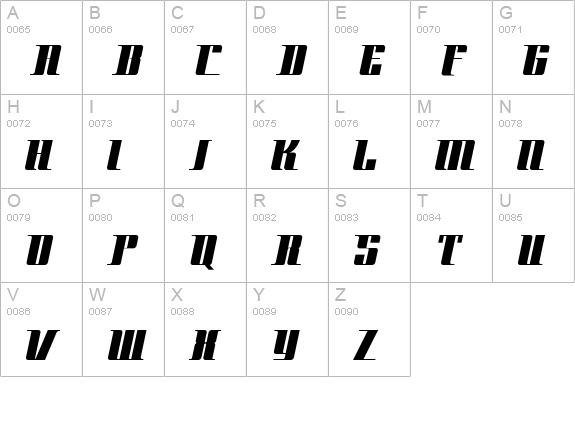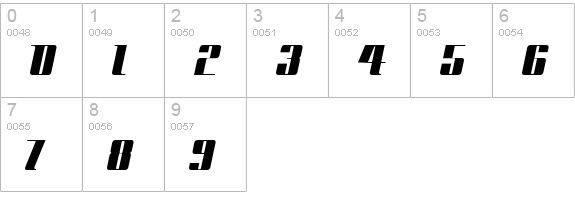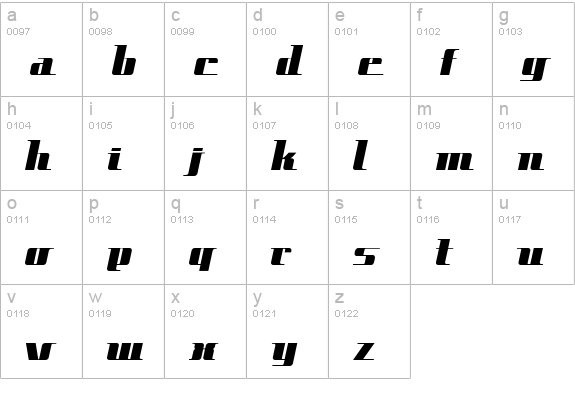
Space Cadet NF Font Details
Space Cadet NF is a futuristic and stylish font that captures the essence of space exploration and adventure. With its sleek lines and bold design, this font is perfect for creating eye-catching headlines, posters, and logos that will surely stand out. Whether you're working on a science fiction project or just want to add a touch of cosmic flair to your designs, Space Cadet NF is the perfect choice. The best part? Space Cadet NF is completely free to download at FontsMarket.com. This means you can easily access this unique font and start using it in your projects right away, without having to worry about any licensing fees or restrictions. So why wait? Download Space Cadet NF today and take your designs to new heights with this stunning font.